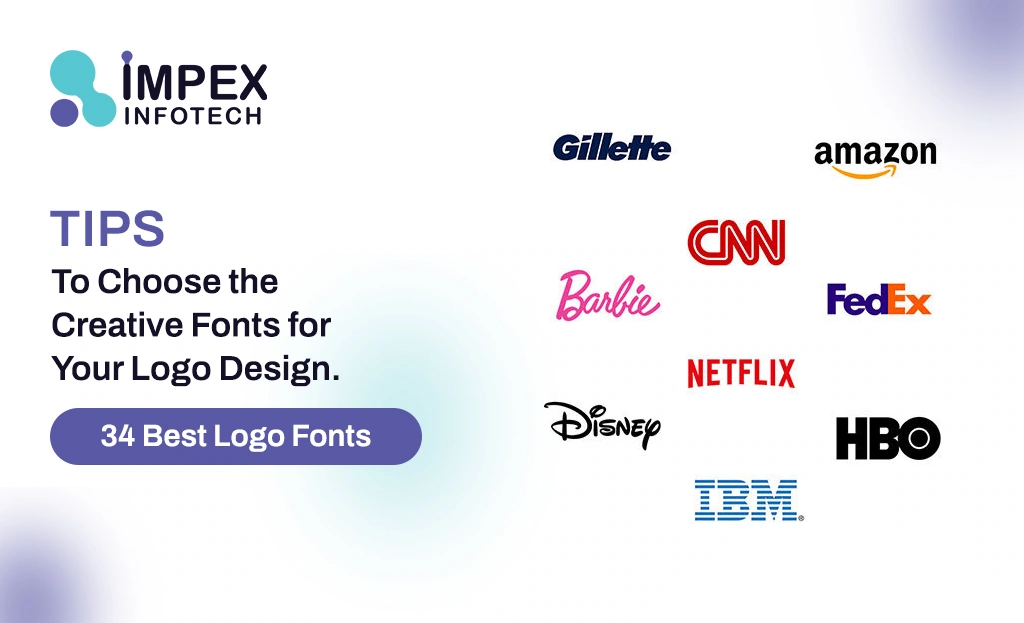
34 Best Logo Fonts (and When to Use Each One)
1. Introduction
Your logo is your visual identity. Whether you’re building a sleek tech startup or a luxurious fashion brand, the font you choose can say as much about your business as your words. We understand that the right typography can elevate your entire brand image. That’s why we’ve curated this comprehensive guide featuring 34 of the best logo fonts and when to use each one.
2. What Makes a Great Logo Font?
A great logo font should be:
-
Legible: Easy to read at all sizes
-
Memorable: Unique enough to stand out
-
Timeless: Not overly trendy
-
Aligned with brand tone: Whether that’s playful, elegant, or innovative
-
Versatile: Works well in print, web, and across devices
Fonts fall into different families—serif, sans-serif, script, display,, and handwritten—and each carries its own vibe. Let’s explore the best options from each category.
3. 34 Best Logo Fonts (Detailed)
1. Montserrat
A modern sans-serif font known for its clean lines and clarity. Montserrat is perfect for tech startups, apps, and brands seeking a professional yet approachable look. Its geometric structure ensures readability across digital and print mediums, making it a versatile choice for modern branding.
2. Playfair Display
This elegant serif font evokes a sense of luxury and tradition. Playfair Display is ideal for fashion, beauty, and editorial brands that want to project sophistication and timeless style. Its classic curves and high contrast strokes add a touch of refinement to any logo.
3. Bebas Neue
Bebas Neue is a bold, condensed, all-caps sans-serif font that demands attention. It’s great for brands in fitness, sports, or media sectors that require a strong, impactful visual presence. The font’s simplicity combined with its boldness makes it perfect for headlines and logos needing immediate recognition.
4. Raleway
Raleway is a sleek and elegant sans-serif font with a minimalist design. It works well for modern businesses such as web agencies, consultants, and startups. Its thin strokes combined with a professional appearance convey sophistication and innovation.
5. Cinzel
Inspired by ancient Roman inscriptions, Cinzel brings a classical and traditional vibe to logos. It’s perfect for legal firms, heritage brands, or any business wanting to emphasize longevity and trustworthiness. The sharp serifs and formal tone make it stand out in formal industries.
6. Lobster
Lobster is a popular script font with a friendly and casual feel. It adds a stylish flair and is widely used in food brands, local cafés, and boutiques. Its cursive style creates a warm, inviting personality that can connect well with consumers looking for authenticity.
7. Poppins
Poppins is a geometric, minimalist sans-serif font known for its clean and modern aesthetic. It’s ideal for SaaS companies, fintech startups, and technology brands that want to project innovation and clarity. The font’s circular shapes give it a friendly yet professional look.
8. Futura
One of the most timeless sans-serif fonts, Futura is known for its geometric precision and modernist roots. It works well for architecture firms, design agencies, and tech brands aiming for a clean and futuristic style. The font communicates confidence and reliability.
9. Pacifico
Pacifico is a hand-drawn script font with a relaxed, casual vibe. It’s perfect for lifestyle brands, fashion lines, or creative businesses that want to appear approachable and fun. Its flowing, informal strokes suggest creativity and individuality.
10. Abril Fatface
Abril Fatface is a bold serif font characterized by dramatic contrasts between thick and thin strokes. It is well-suited for beauty, fashion, or editorial brands wanting to make a bold statement. The font’s strong personality can elevate logos with its dramatic style.
11. Oswald
Oswald is a reworked classic sans-serif font tailored for digital screens. Its sturdy design is excellent for blogs, news sites, and modern publications. The font’s condensed form allows it to fit well in tight spaces while maintaining legibility.
12. Great Vibes
Great Vibe is an elegant, flowing script font ideal for weddings, personal brands, or luxury services. Its intricate, calligraphic style brings sophistication and charm to logos needing a personal touch.
13. Nunito
Nunito offers a rounded, modern sans-serif style that balances friendliness with professionalism. It’s perfect for healthcare, educational institutions, and startups seeking an approachable yet credible image.
14. Anton
Anton is a heavyweight sans-serif font designed to command attention. Ideal for headlines, sports branding, and any logo needing strong visibility, its boldness makes it impossible to ignore.
15. Amatic SC
Amatic SC is a quirky, hand-drawn font with an artsy vibe. Great for craft shops, artisan stores, or creative ventures, it gives logos a fun, informal, and authentic personality.